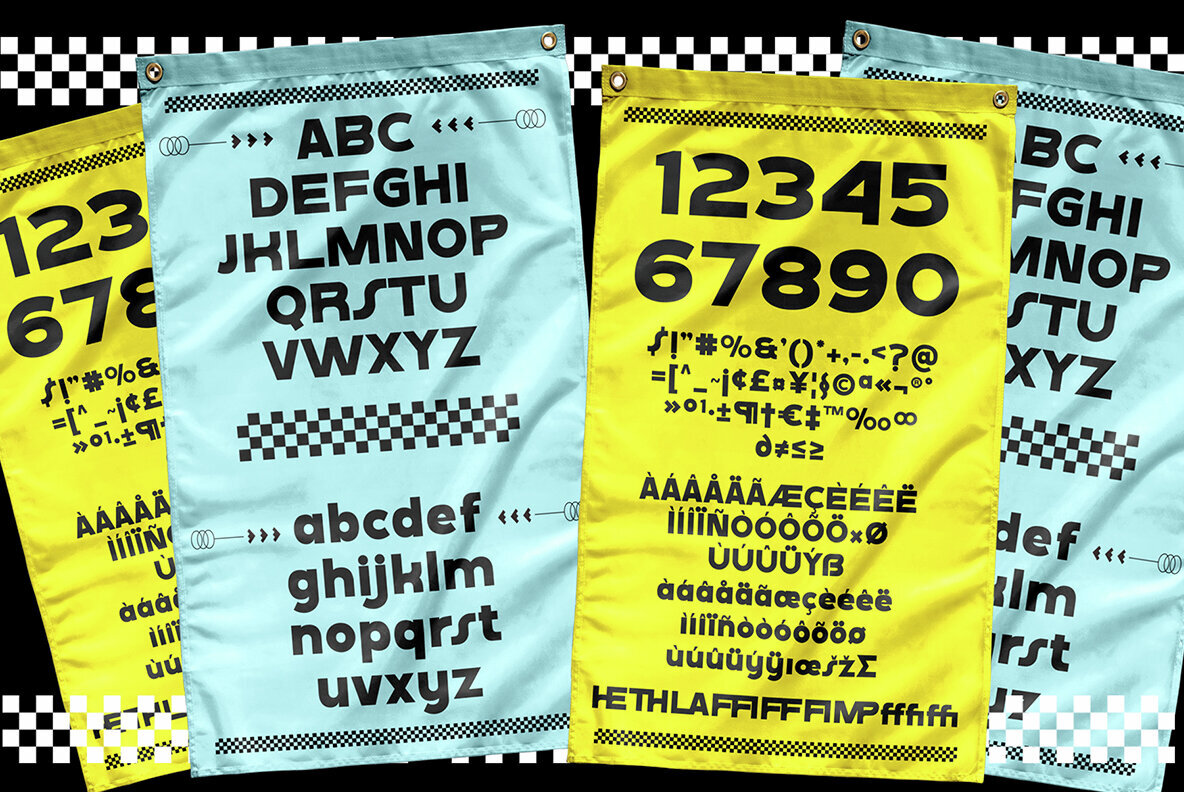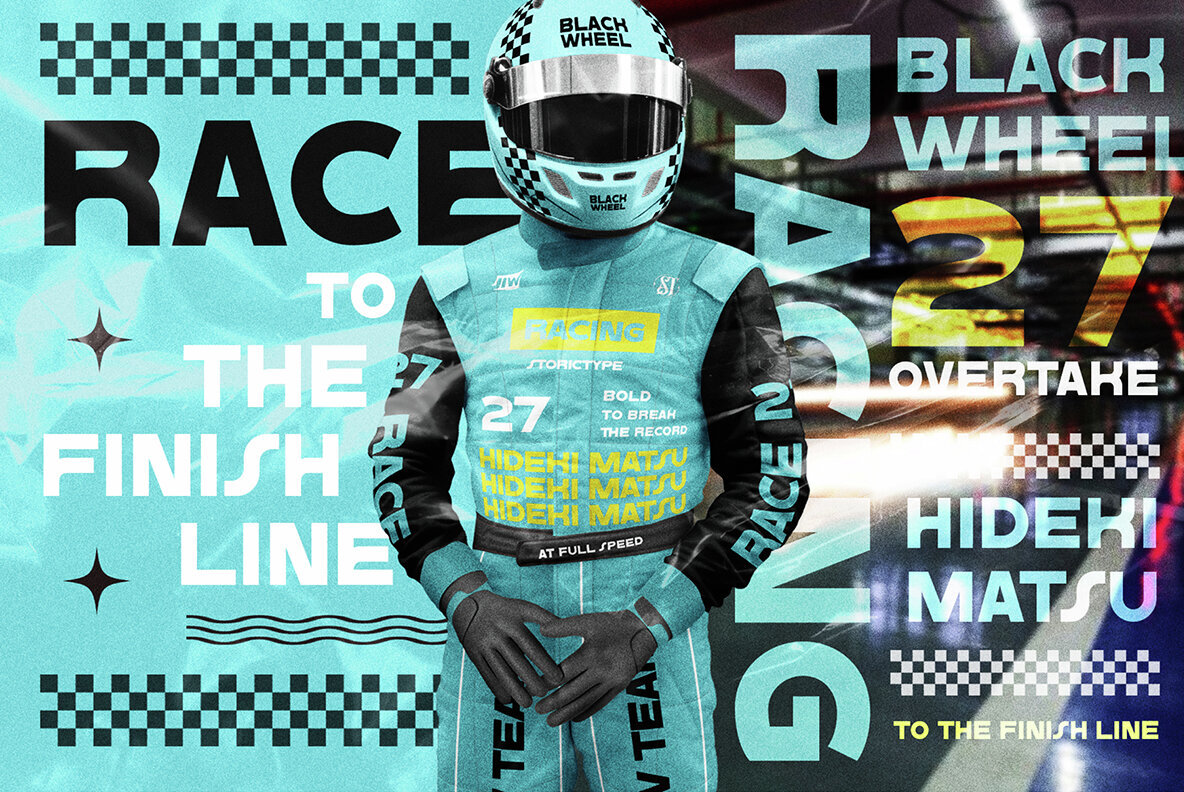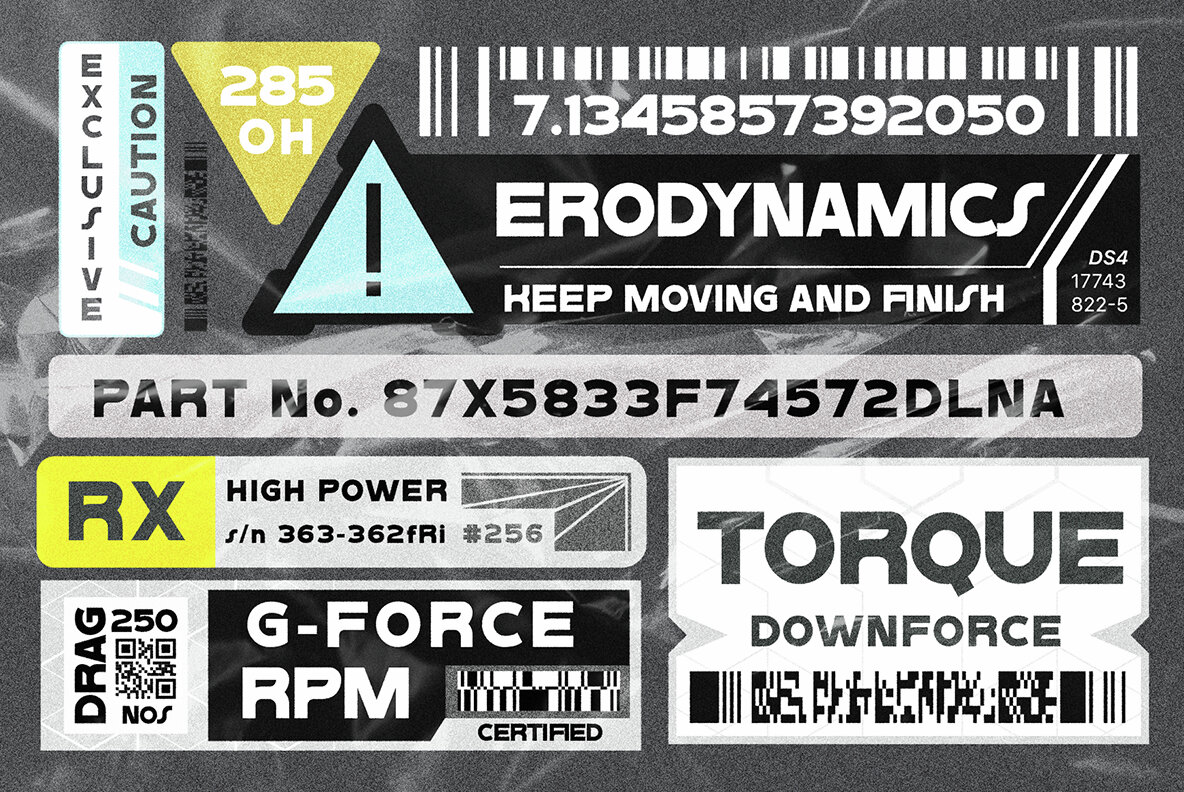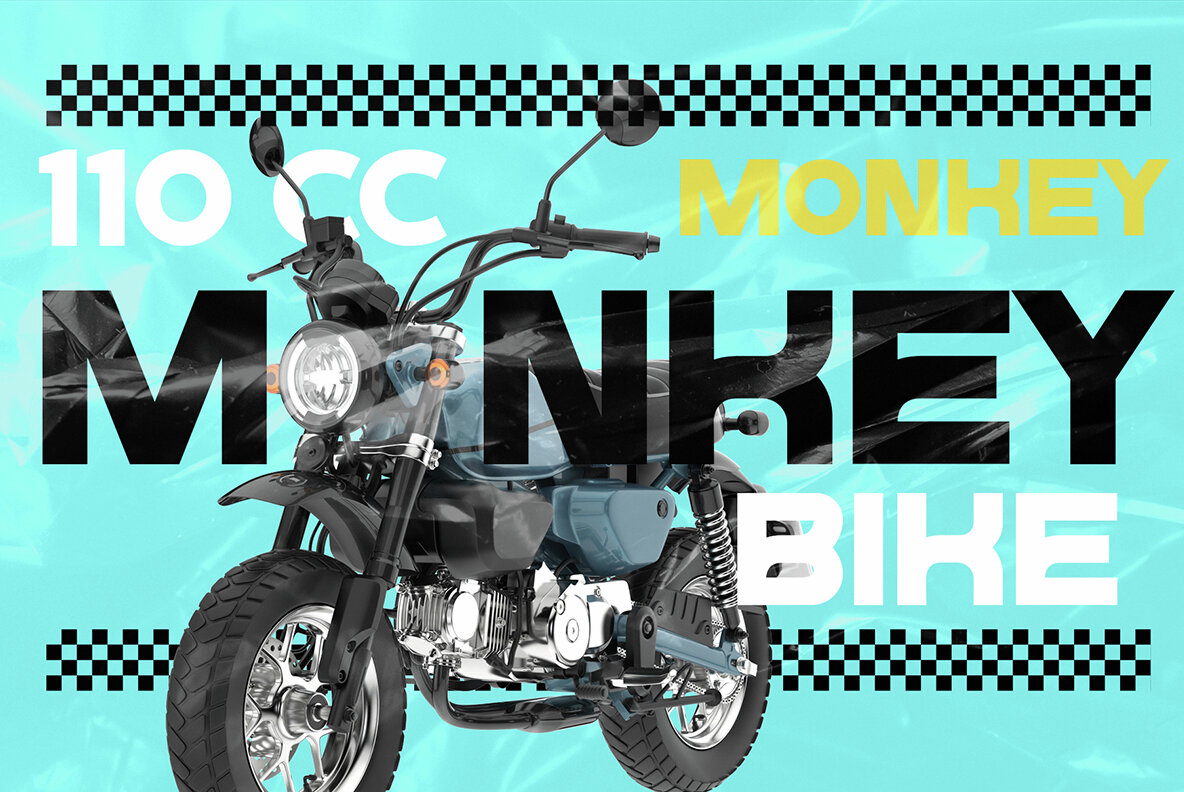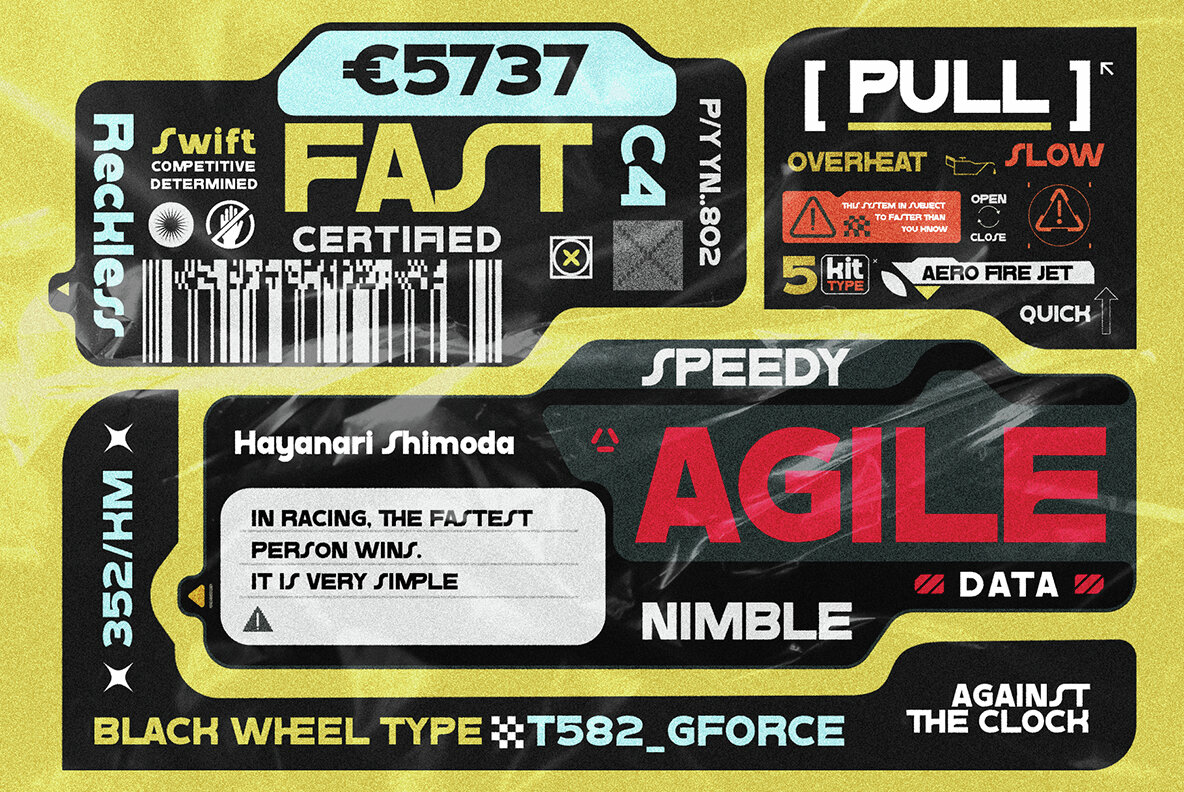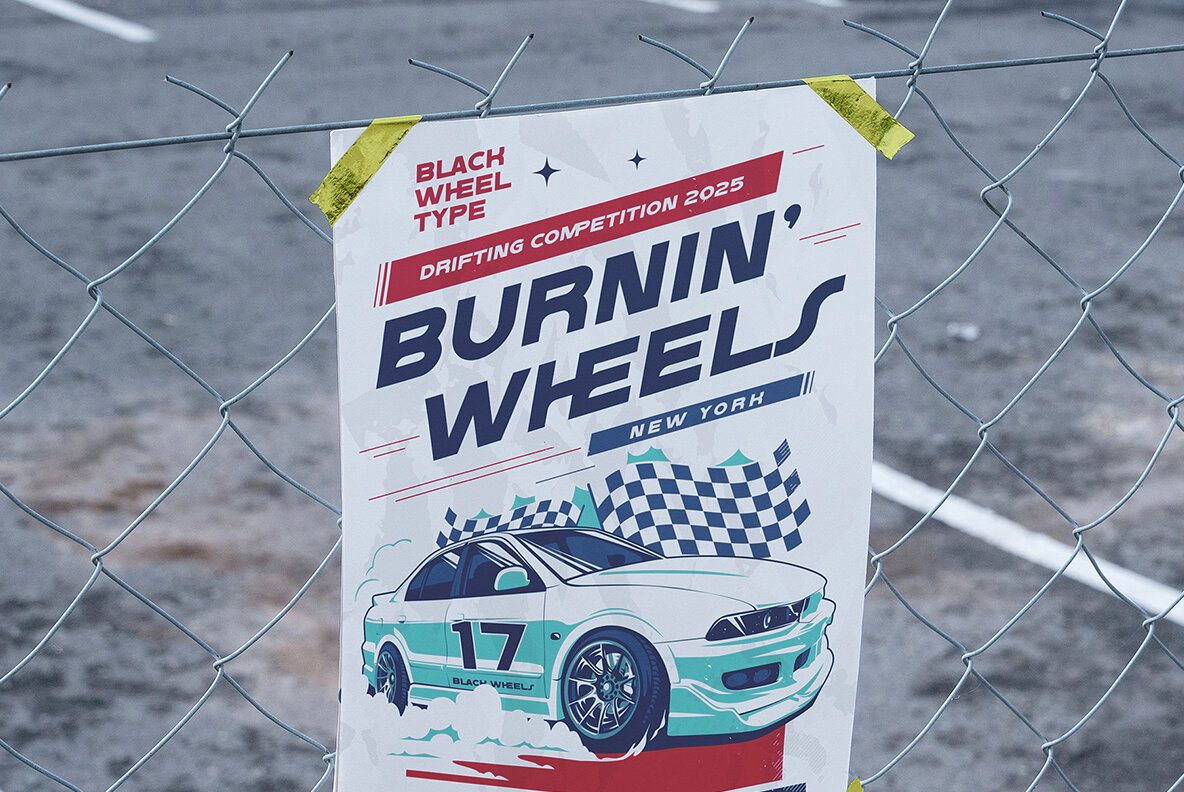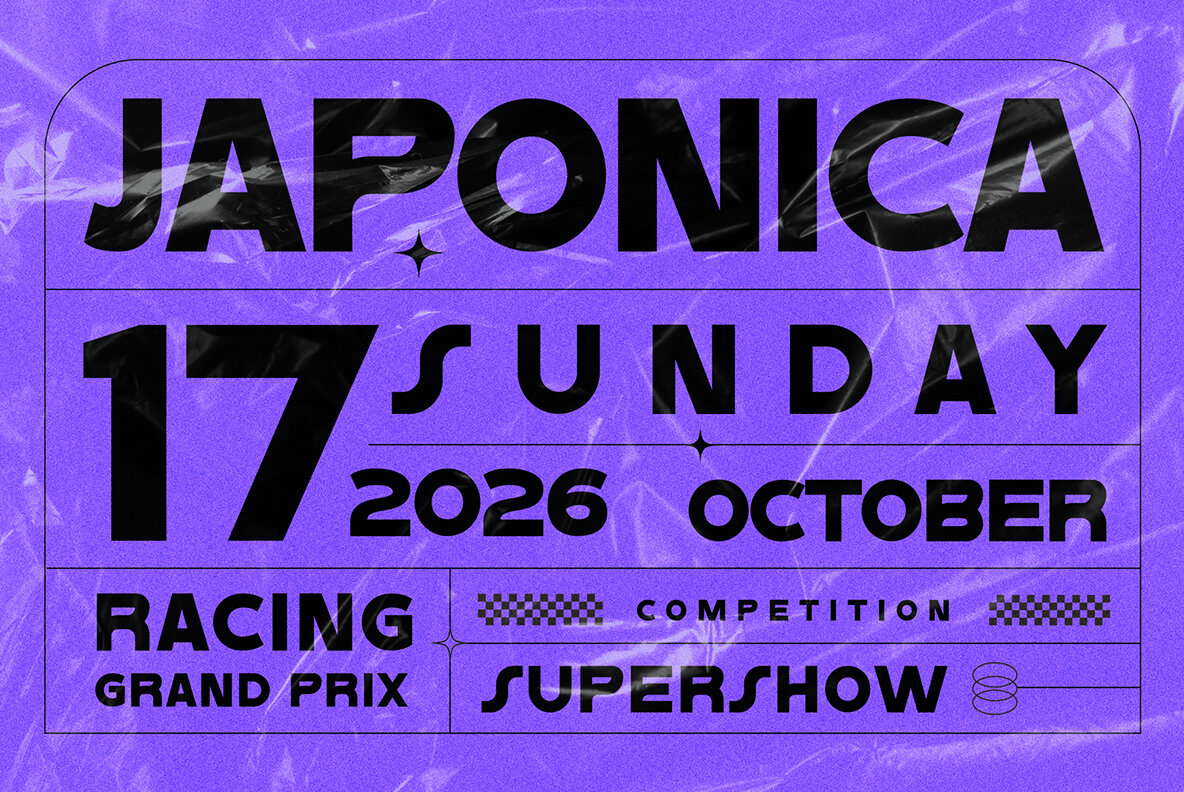
Introducing Black Wheel a font designed with the exhilarating world of racing in mind. Encompassing a strong and dynamic style and a maximized shape, potency, and vigor. The effectiveness of "Black Wheel" shines when used for racing game covers, sports events, automotive posters, or magazine covers. It's more than just a font - it's a critical accent for your brand, an essential element of your product design, an exclusive touch to your labels, or any other creative project you undertake.
• Uppercase and lowercase english letters
• All punctuation
• Numerals
• Language coverage
• Ligatures